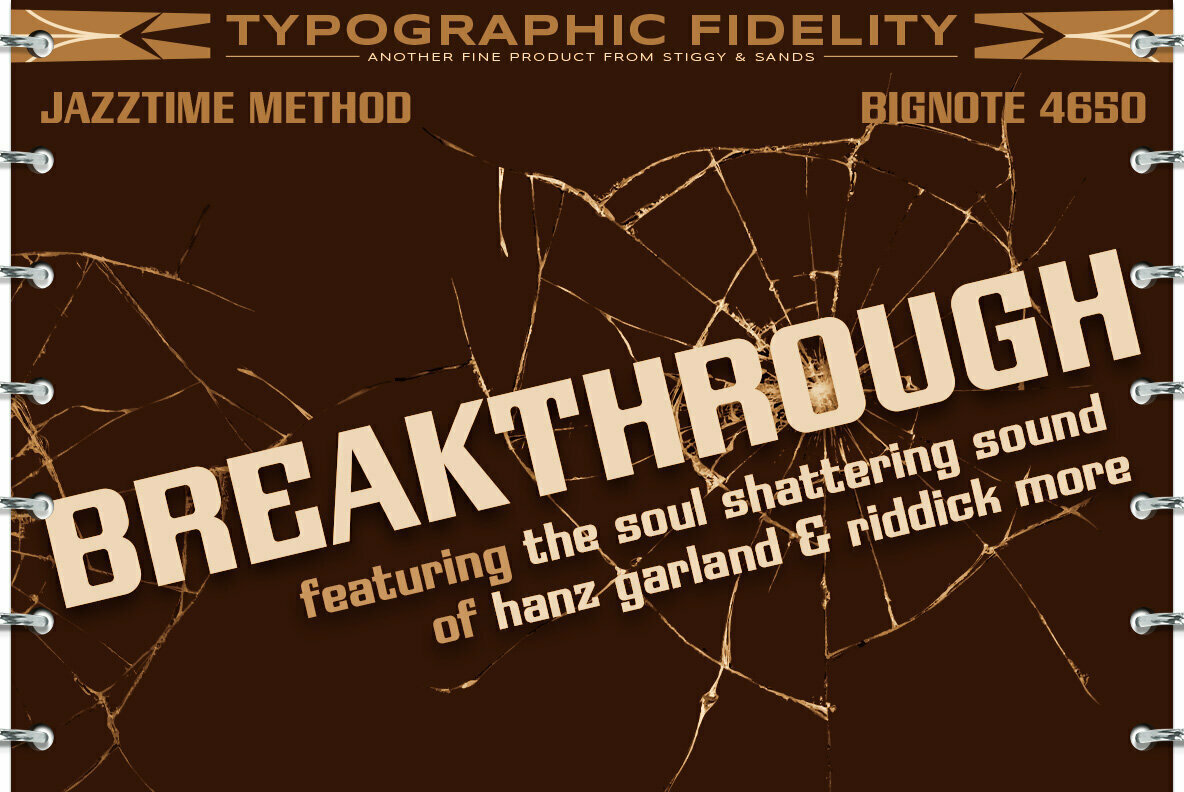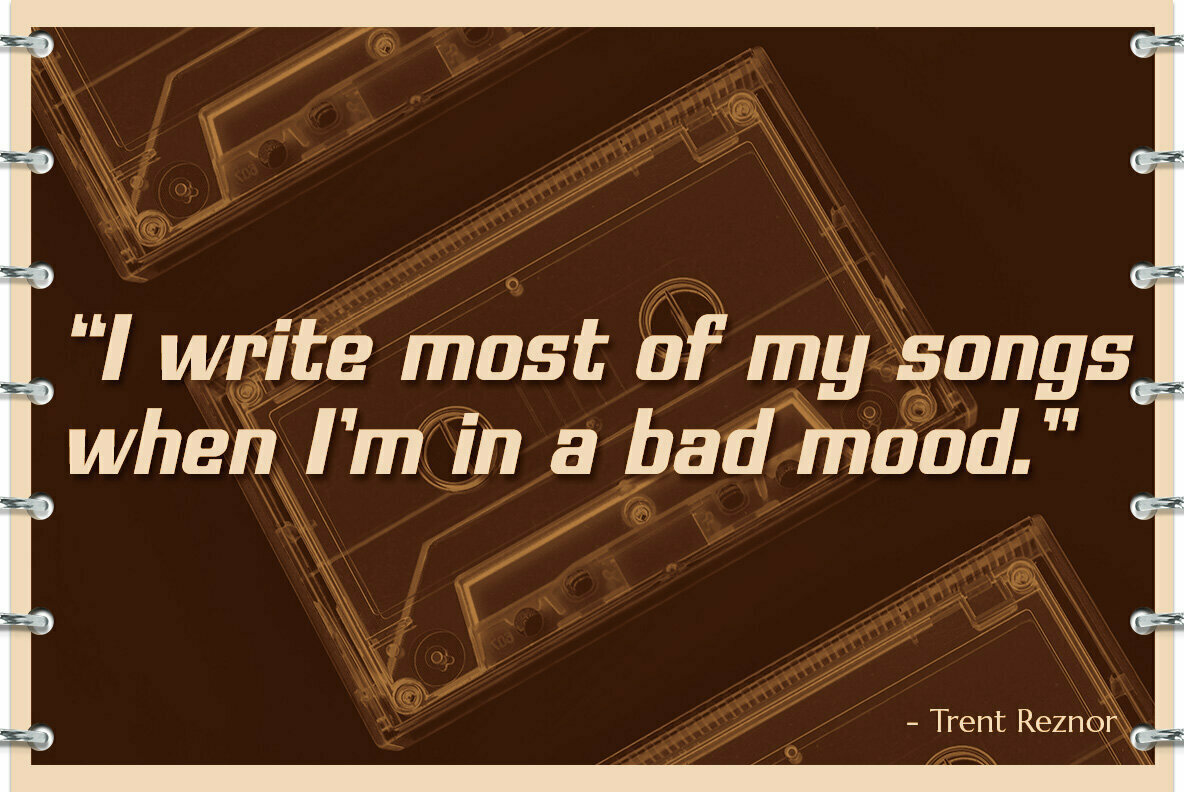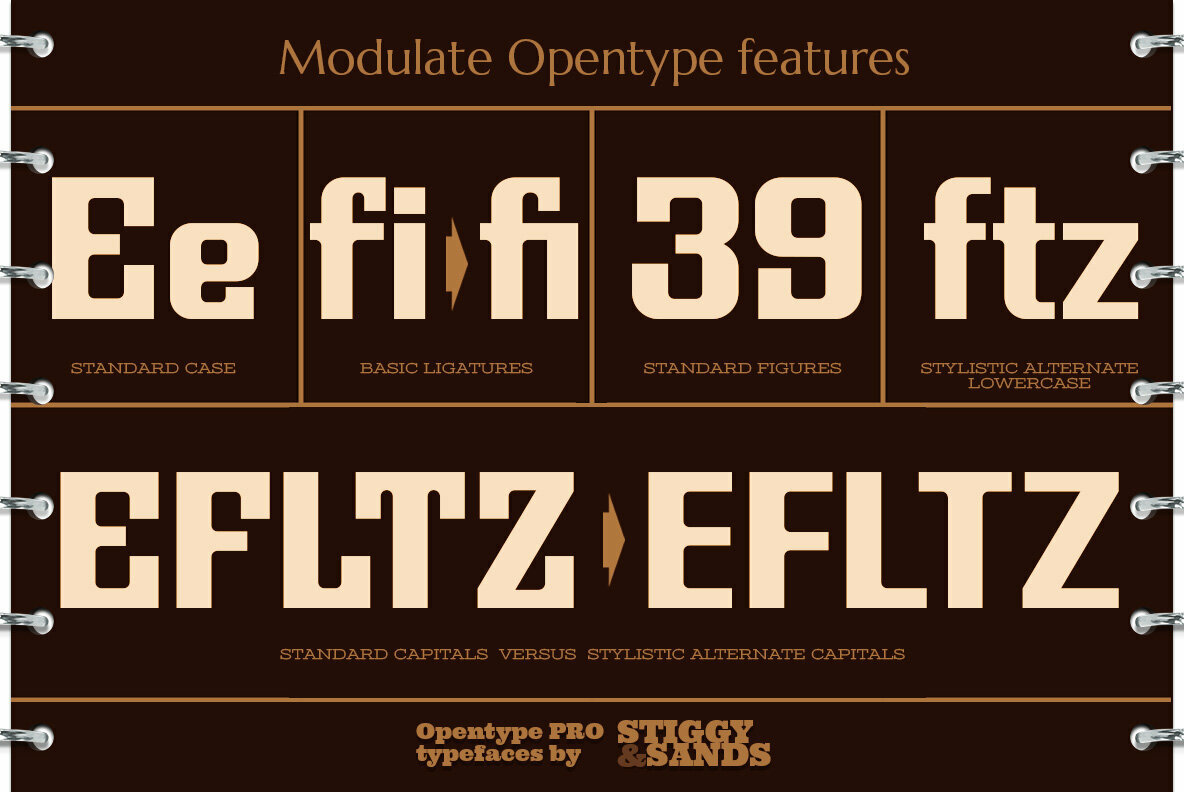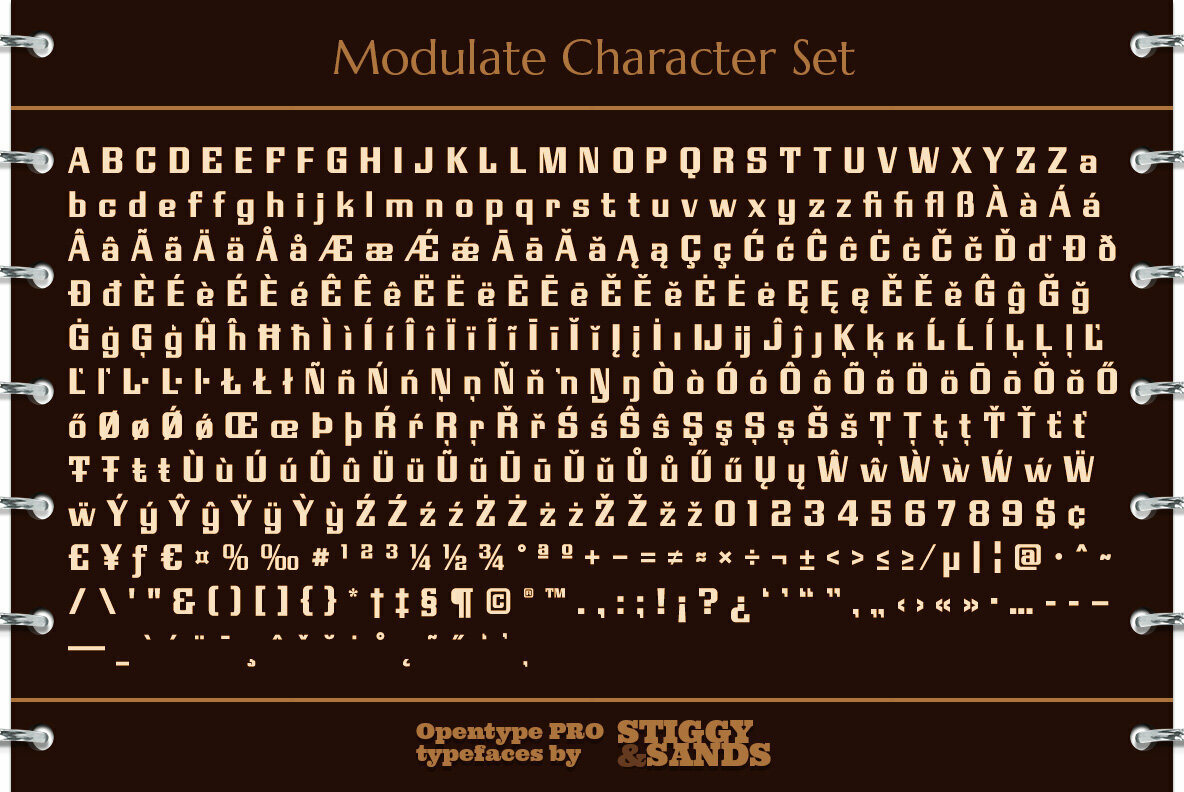
Modulate Font
A Blocky Geometric Techical typestyle
Modulate began as a digitization of a film typeface from LetterGraphics in the early 70's known as "Cadence". The original specimen included standard Capitals and Lowercase, Numerals and minimal Punctuation, a bare bones character set, previous only available on film and only in an upright stance.
We've fleshed out the Modulate typeface to include a full standard character set, an extended international set, and a handful of alternate character styles. We've also added an oblique style that suits its techno design. Both vintage and modern feeling, with a dynamic techno presence, Modulate draws attention without being outlandish.
Bare Bones Opentype features include:
- Standard fi and fl ligatures
- Stylistic Alternates Letterforms for: EFLTZ and ftz characters
- Approx. 411 Character Glyph Set: Modulate comes with a glyphset that includes standard & punctuation, international language support, and minimal additional features.